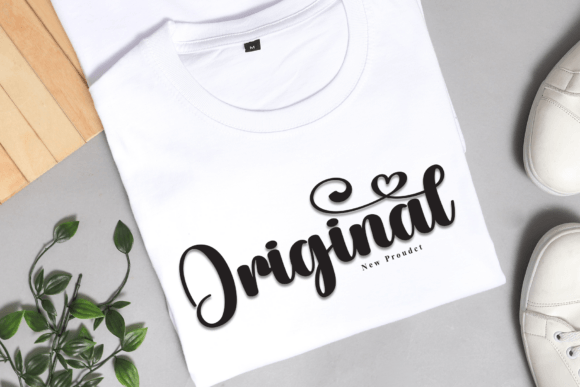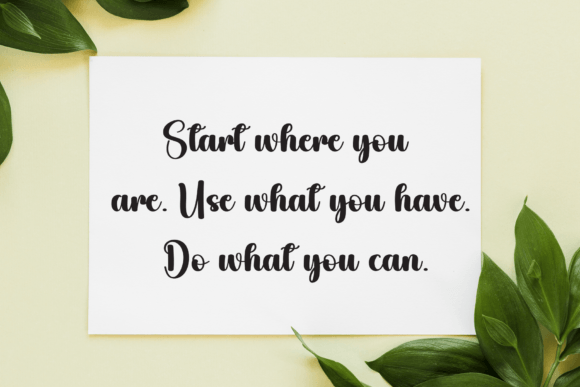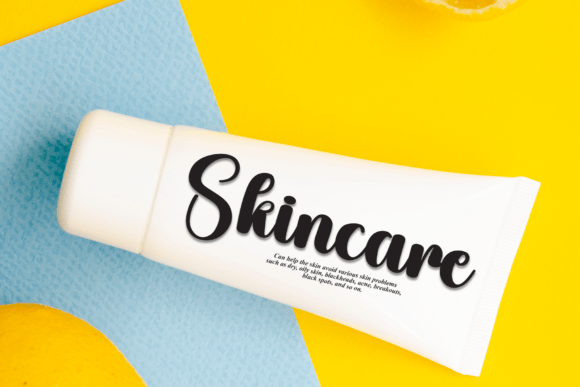
Introduction to Jewels Font
Jewels is a stylish handwritten script font exuding elegance and charm.
Its fluid strokes and natural flow create a captivating, sophisticated look Perfect for adding a personal touch to invitations, branding, or social media, this font brings a sense of warmth and creativity to any design.